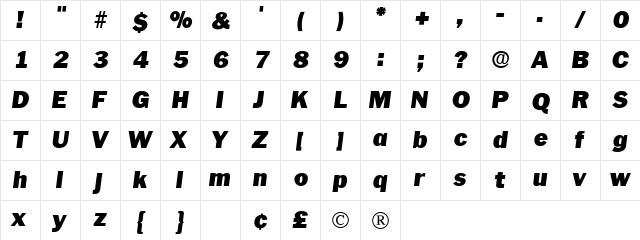
Pasch Display SSi Italic Font Preview
Pasch Display SSi Italic
Design Context for Pasch Display SSi Typeface
Pasch Display SSi is built around its visual character rather than neutral utility — its distinctive forms are designed to make an impression at display sizes. Its italic angle brings a sense of urgency and motion to the letterforms.
Font Pairing: Pair with a clean neutral sans-serif for body copy to let Pasch Display SSi's character lead without overwhelming the composition.
Pro Tip: Use Pasch Display SSi exclusively at display sizes — it was designed to be seen, not read at length. Let a neutral companion handle body copy.